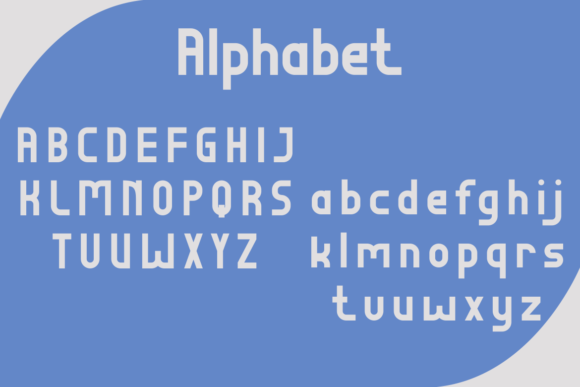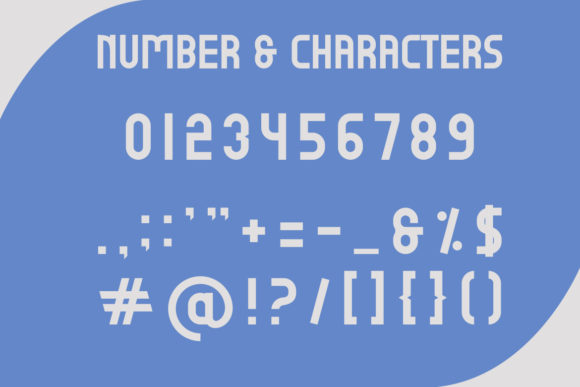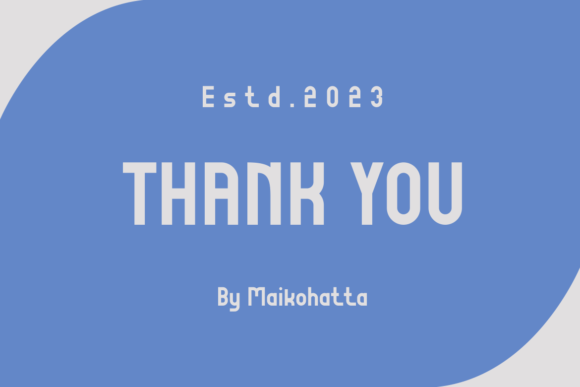
Introduction to Joyajoy Font
Joyajoy is a unique and interesting display font.
Distinctive and modern, this font looks incredibly adept in a wide variety of contexts .
Key Features of Joyajoy Font
Why Choose Joyajoy Font?